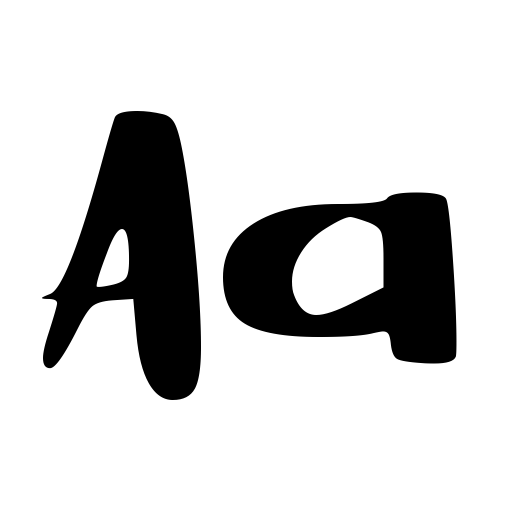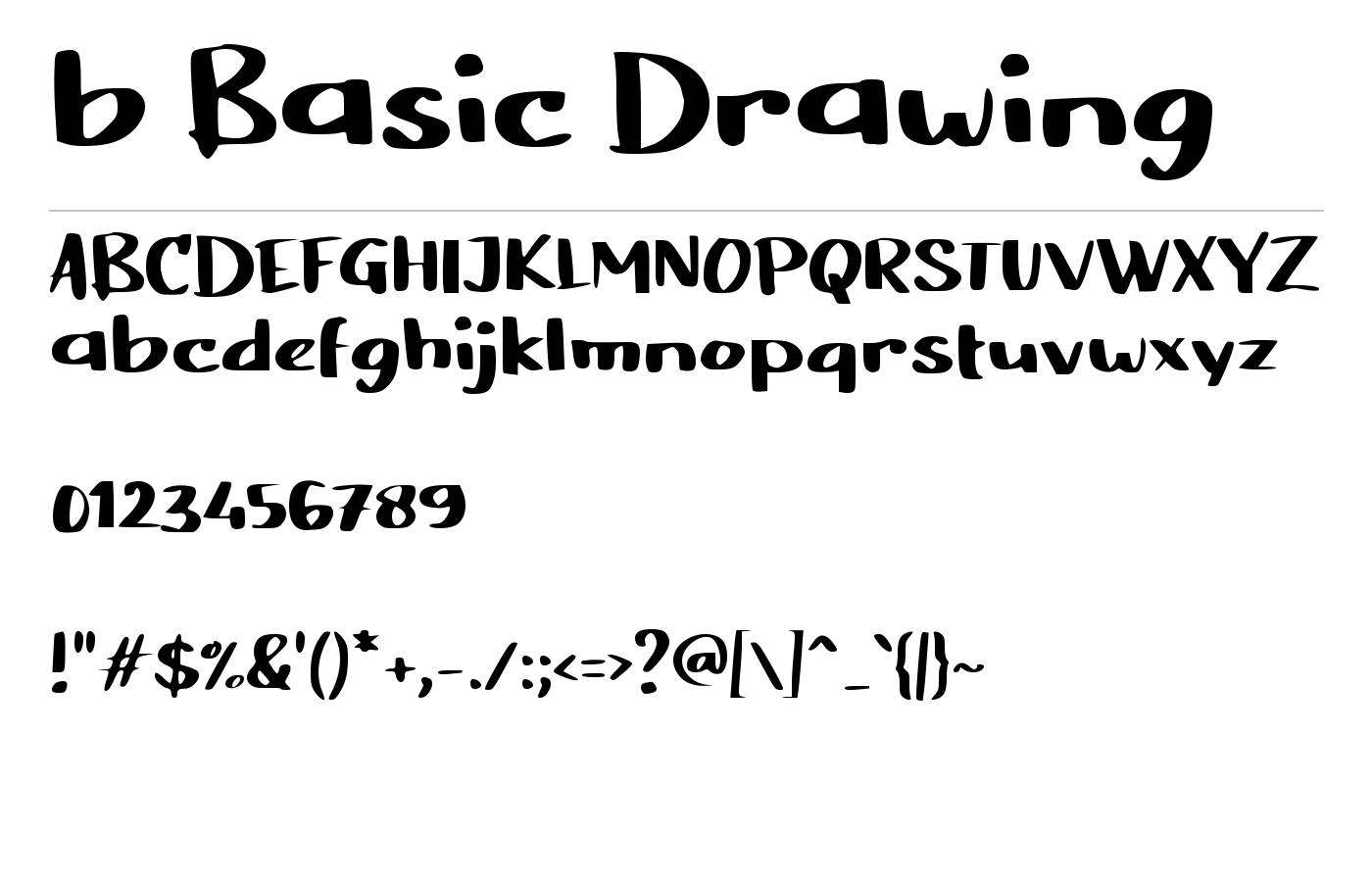
b Basic Drawing is a playful and informal sans serif font with a hand-drawn, slightly bold style that adds personality and warmth. Its irregular strokes and casual letterforms make it ideal for creative projects, children’s books, and friendly branding where a fun, approachable vibe is desired. This font works well in headlines, posters, or packaging that aims to capture attention with a lively and relaxed tone.
b Basic Drawing Font